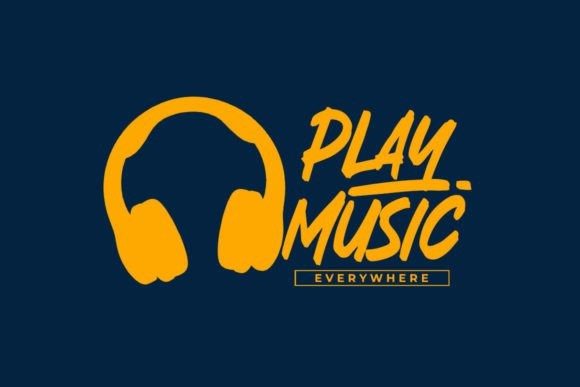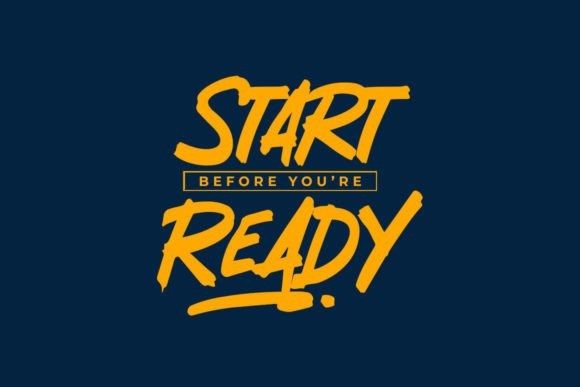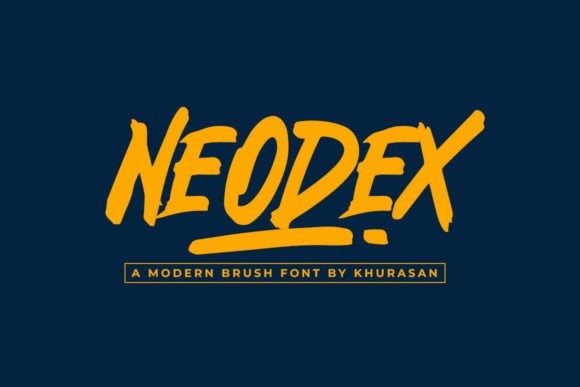
Neodex Font
Neodex Font is a modern bold brush font perfect for posters, logos, magazines, book covers, banners, and many more! Get this quirky display font, and use it to create lovely designs!